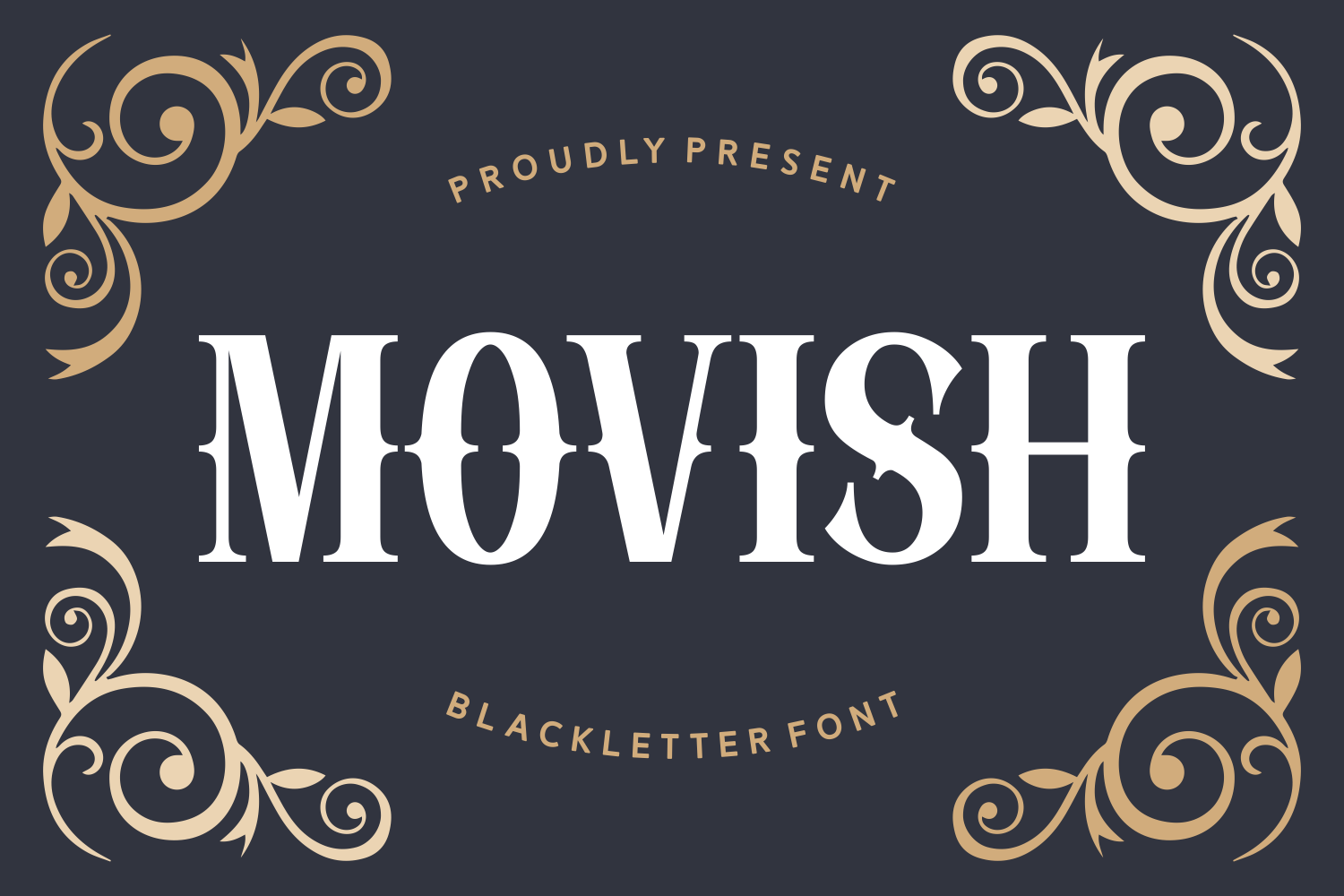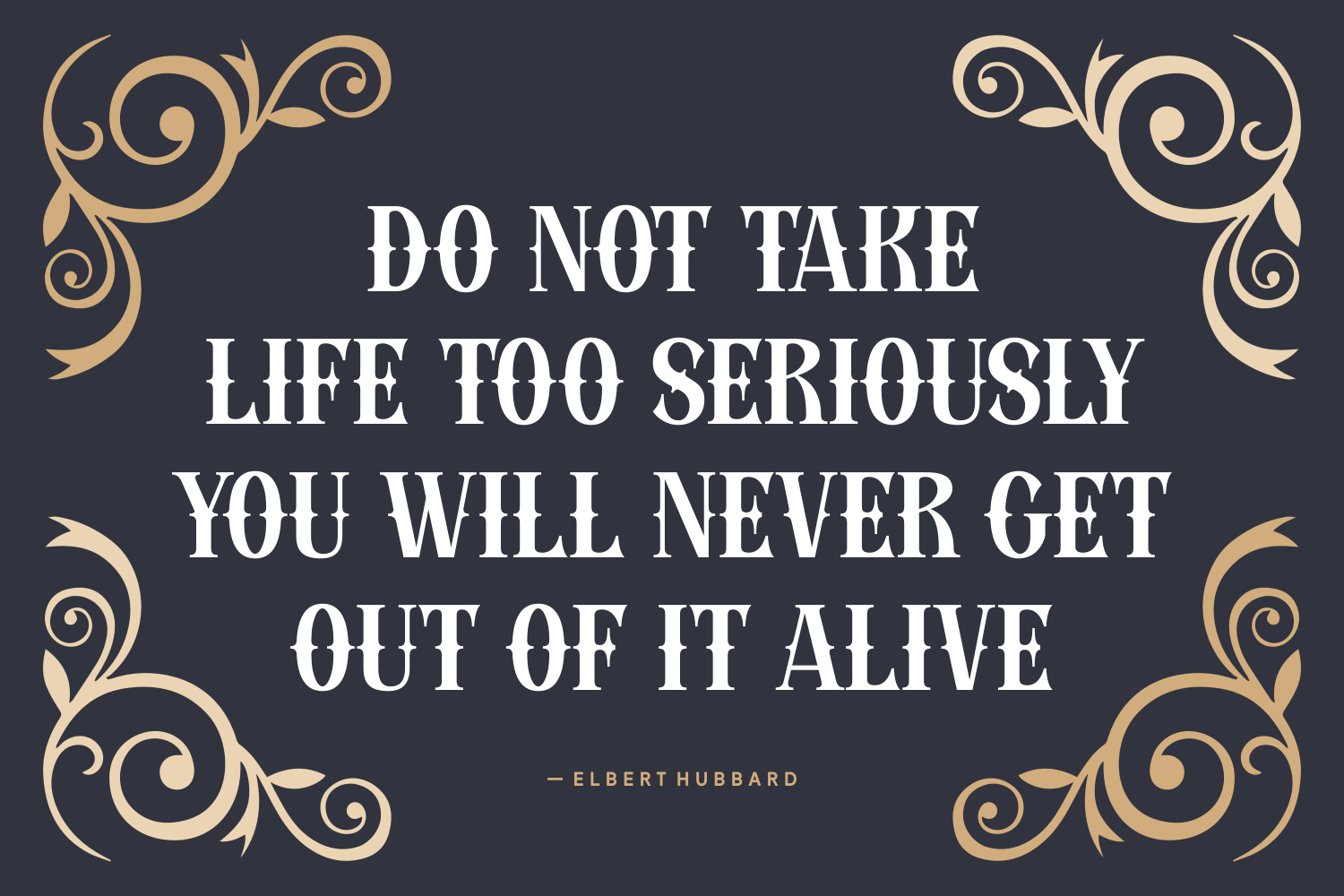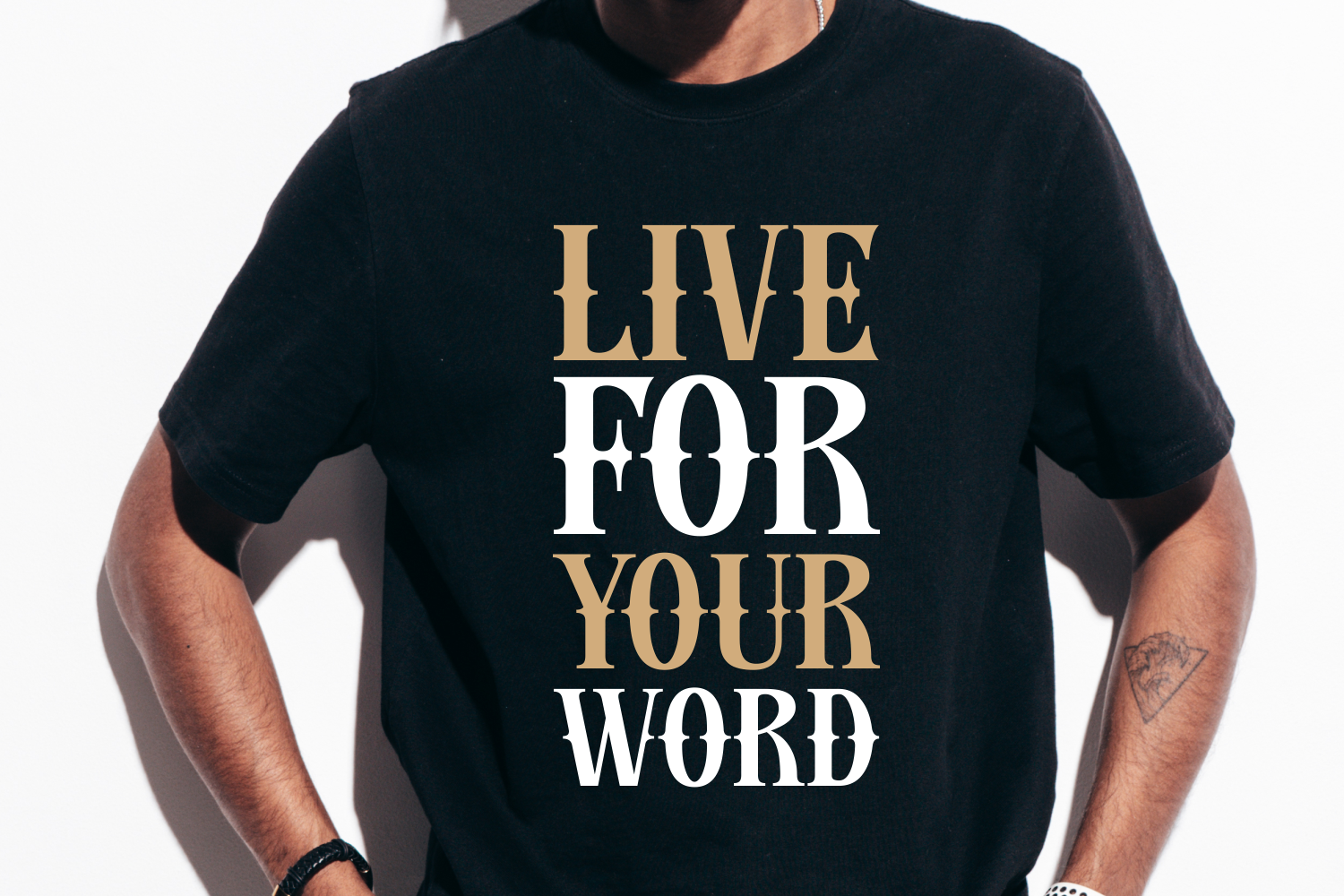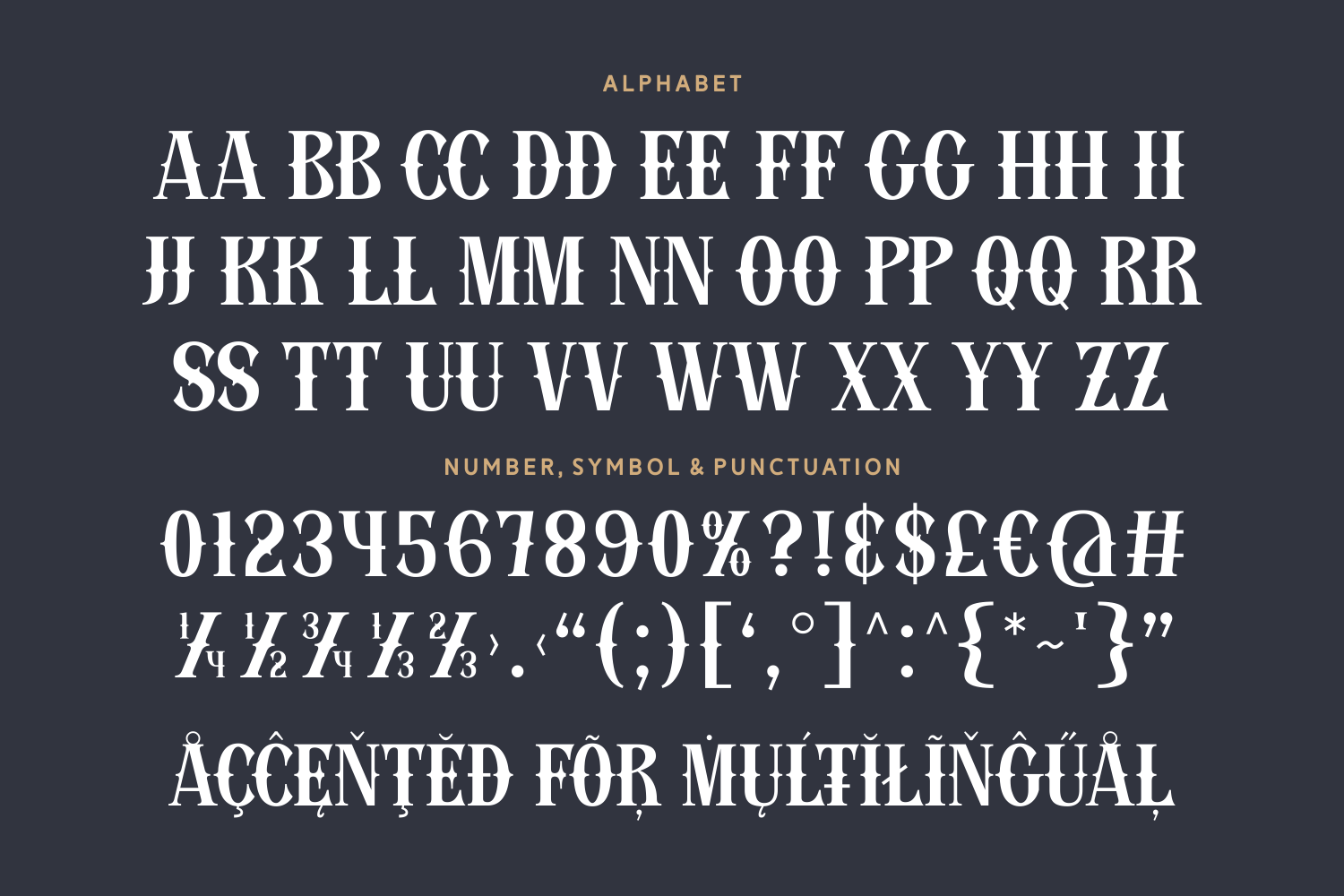
Movish is an elegant and classy blackletter font that fuses vintage gothic form with contemporary grace. Refined curves and balanced weight make it perfect for luxury branding, boutique packaging, or editorial spreads where style meets tradition.